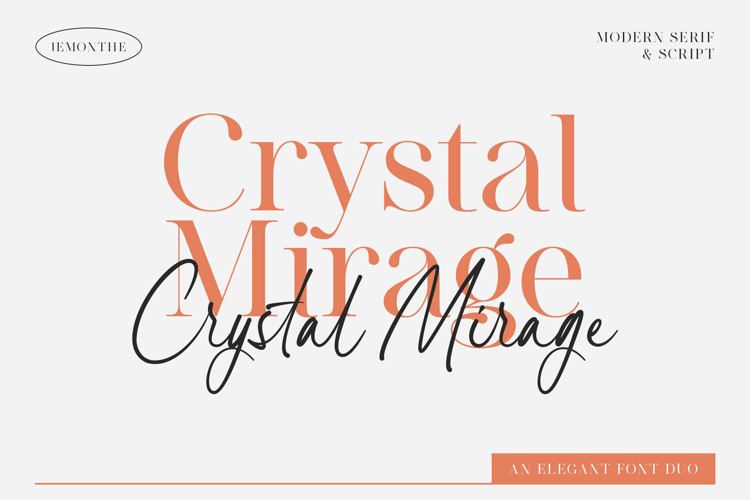
Crystal Mirage is a modern font duo that combines luxurious serif with graceful script to create a strong visual harmony. With a clean yet characterful design, this font is ideal for logos, invitations, packaging, editorials, and digital content that require an elegant yet modern impression.